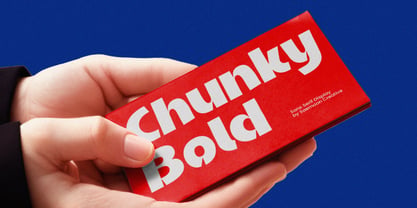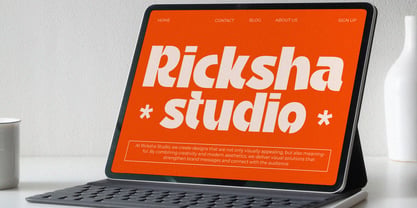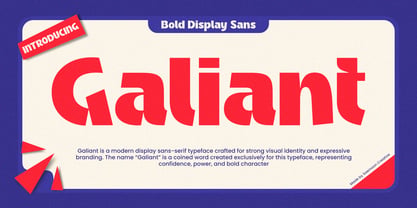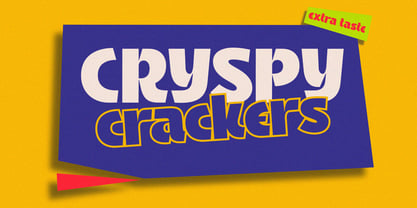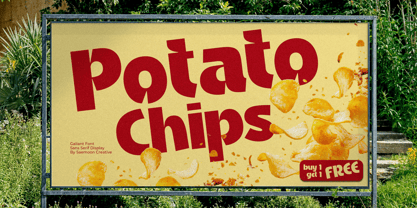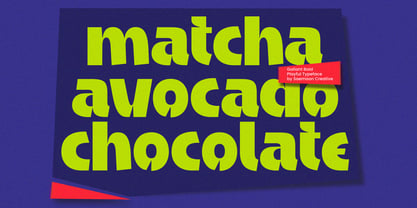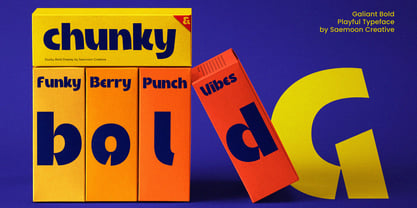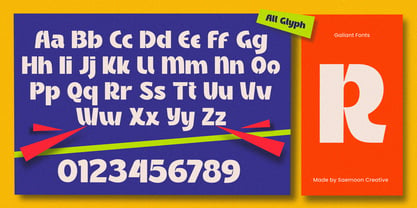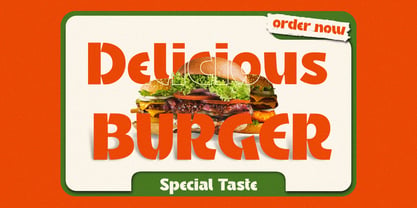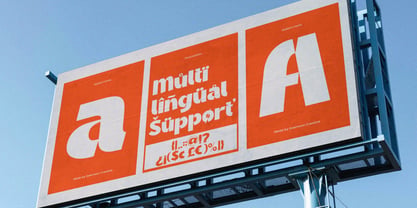
Sc Galiant
von Saemoon Creative
Die Schriftfamilie Sc Galiant wurde von Sapto Susilo entworfen und von Saemoon Creative veröffentlicht. Sc Galiant enthält 2 Stile und Familienpaketoptionen. Mehr über diese Familie
Galiant – Modern Bold Display Sans Galiant is a modern bold display sans-serif typeface designed to deliver a strong visual identity and confident branding. With its sharp cuts, geometric forms, and powerful presence, Galiant brings a contemporary yet expressive character to any project. Created as an original, coined-name font, “Galiant” represents boldness, clarity, and a unique personality—making it ideal for designers who want a standout look. The font performs exceptionally well in large sizes, ensuring maximum impact for logos, headlines, posters, and product branding. Features: Bold modern display sans style Sharp, clean, and dynamic letterforms Strong personality for impactful branding Perfect for logos, posters, packaging, and advertising Unique coined name suitable for exclusive identity Recommended Use: Logo Design, Branding, Posters, Headlines, Packaging, Editorial Design, Advertising, Social Media Visuals.
Designer: Sapto Susilo
Foundry: Saemoon Creative